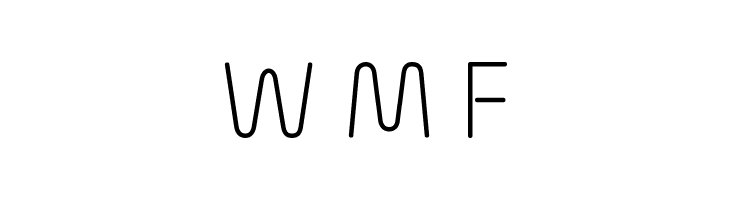
A sleek, modern font with thin, uniform lines and a minimalist aesthetic.
A sleek, modern, thin italic font with a minimalist design.
A sleek, modern font with geometric lines and a minimalist style.
A modern sans-serif font with clean lines and excellent readability.
A sleek, modern, and elegant extra light italic font with a minimalist design.
A sleek, modern, and thin italic font with a minimalist design.
A sleek, modern font with thin strokes and a minimalist design.
A sleek, extra-light typeface with a modern and minimalist design.
A sleek, thin, and modern italic font with a minimalist design.
A modern, thin sans-serif font with a clean and minimalist style.
A thin, geometric font with a modern and minimalist design.
A geometric, minimalistic font with thin, hairline strokes and a modern appearance.
A modern, extra-light italic sans-serif font with a sleek and minimalist design.
A modern, minimalist font with thin, uniform strokes and a sleek appearance.
A clean, minimalist font with thin lines and modern style.
A modern, geometric font with clean lines and a minimalist style.
A minimalist, geometric font with thin, uniform strokes and a modern aesthetic.
A modern, geometric font with thin, consistent lines and a minimalist style.
A sleek, modern font with clean, rounded edges and a minimalist aesthetic.
A modern, geometric font with thin lines and a sleek, minimalistic style.
A sleek, modern, and light italic font with a minimalist aesthetic.
A modern, ultra-thin sans-serif font with a minimalist design.
A sleek, ultra-light font with geometric precision and a minimalist aesthetic.
A modern, geometric font with thin, uniform lines and a minimalist design.
A modern, geometric font with tall, narrow characters and a clean design.
A thin, geometric font with a minimalist and modern design.